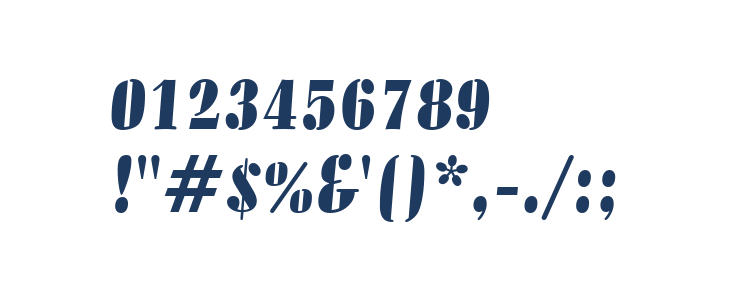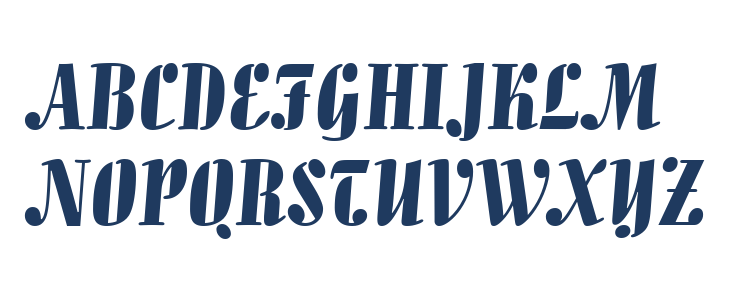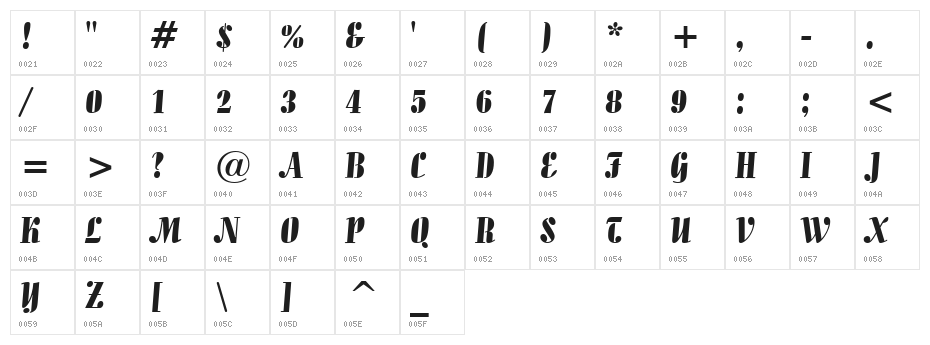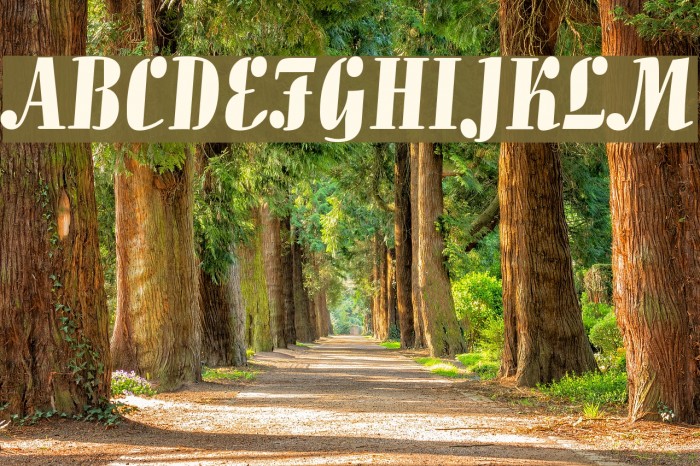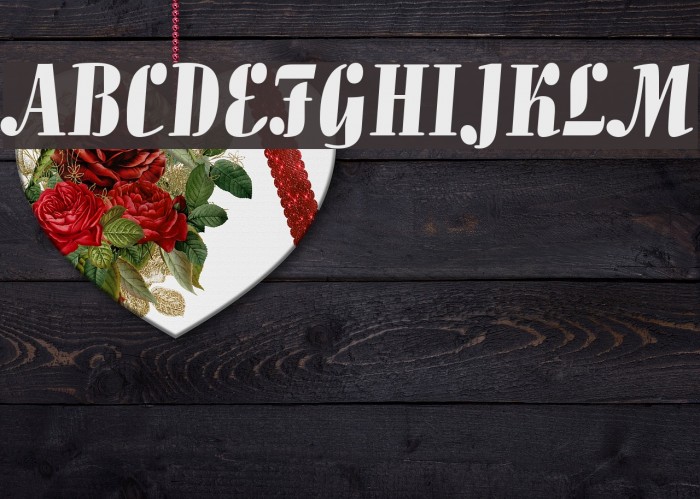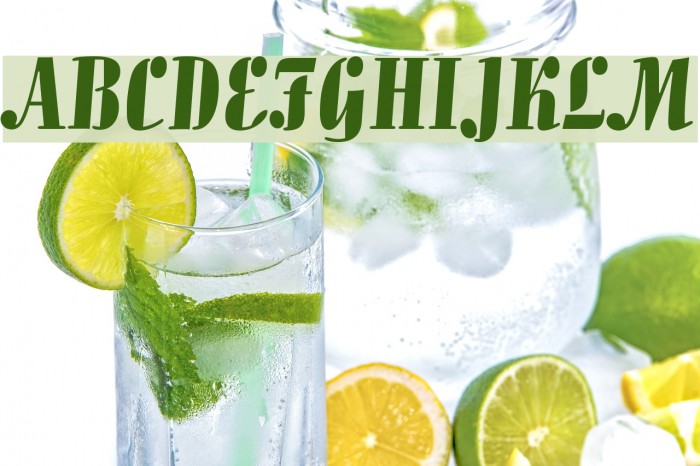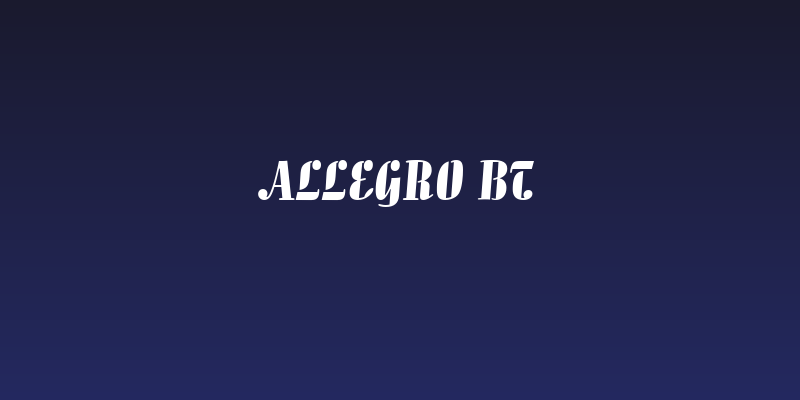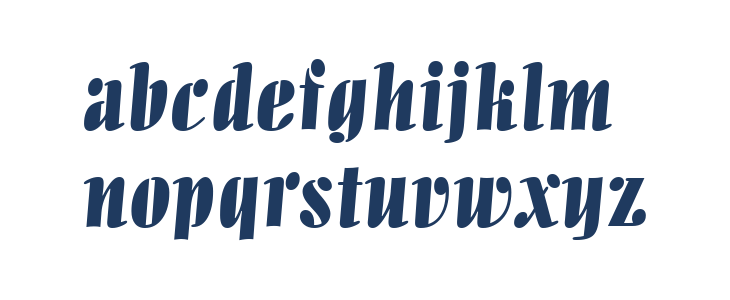
Allegro BT Font
Allegro BT Description
This font features a bold and dynamic style with a strong presence. The characters exhibit a high contrast between thick and thin strokes, giving it a dramatic and elegant appearance. The uppercase letters are particularly striking, with sharp serifs and a slight slant that adds a sense of movement. The lowercase letters maintain this boldness, ensuring readability while retaining a unique flair. The numerals are equally bold, with a consistent weight that complements the alphabet. Special characters are designed with the same attention to detail, making them stand out. Overall, this font combines traditional serif elements with a modern twist, making it versatile for various design applications.